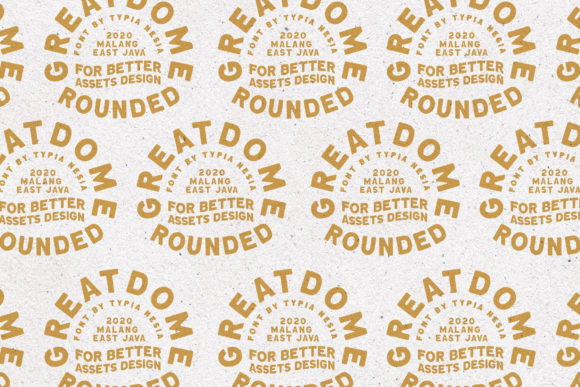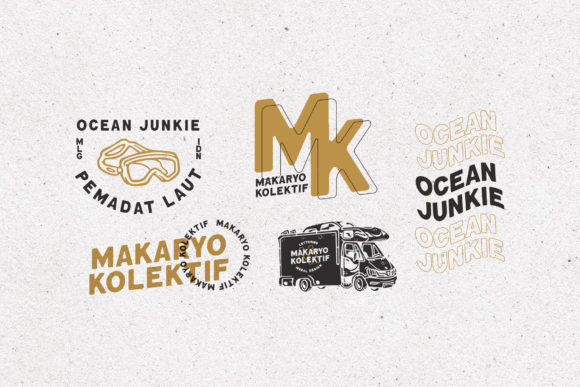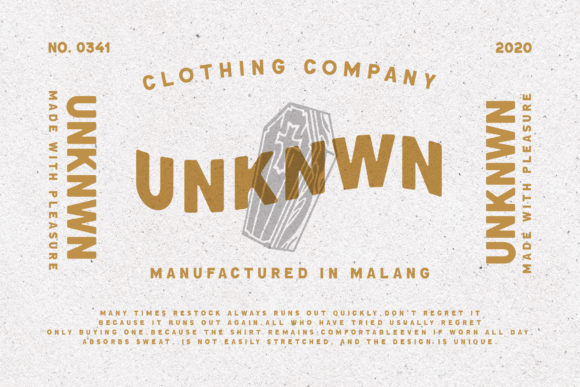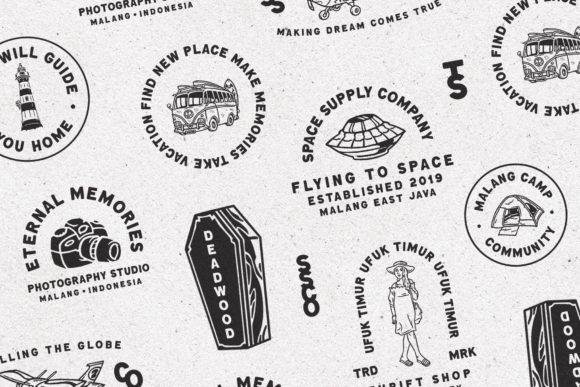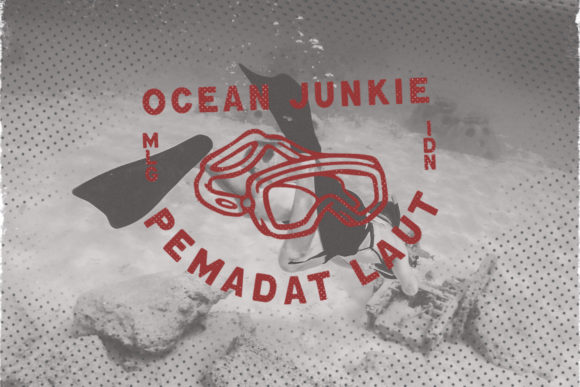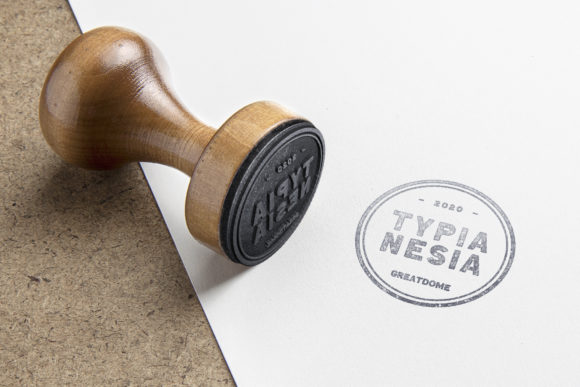
Discover the Timeless Elegance of Great Dome Font
Are you on the hunt for a typeface that exudes elegance, authenticity, and a touch of vintage charm? Look no further than the Great Dome font. This stunning sans serif typeface is sure to add a down-to-earth vibe to a wide variety of projects, making it a must-have for designers and crafters alike.
The Essence of Great Dome Font
Great Dome feels like an incredibly elegant and authentic vintage sans serif typeface. Its unique design elements evoke a sense of nostalgia, transporting you back to a bygone era of classic typography. The font’s clean lines, subtle curves, and perfectly balanced proportions make it an exceptional choice for a wide range of applications.
Key Features of Great Dome Font
• Elegant and Authentic Design: Great Dome boasts an authentic vintage aesthetic that is both elegant and sophisticated.
• Versatile and Adaptable: This typeface is incredibly versatile, making it suitable for use in a variety of projects, from branding and advertising to packaging and digital media.
• Down-to-Earth Vibe: Great Dome’s unique character adds a touch of warmth and approachability to any design, making it perfect for crafters and designers looking to create a sense of connection with their audience.
• Exceptional Legibility: The font’s clear and concise design ensures exceptional legibility, even at smaller font sizes.
What Makes Great Dome Font Stand Out?
Great Dome font stands out from the crowd due to its distinctive design elements and exceptional versatility. Its elegant and authentic vintage aesthetic makes it an excellent choice for designers and crafters looking to add a touch of sophistication to their work.
Great Dome font is perfect for a wide range of projects, including:
• Branding and Identity: Create a lasting impression with a custom logo or brand identity that exudes elegance and sophistication.
• Advertising and Marketing: Add a touch of vintage charm to your advertising and marketing materials, making them stand out in a crowded marketplace.
• Packaging and Labeling: Elevate your packaging and labeling with a typeface that is both elegant and eye-catching.
• Digital Media: Bring a touch of sophistication to your digital media, including websites, social media graphics, and more.
Tips for Using Great Dome Font
To get the most out of Great Dome font, consider the following tips:
• Pair with Other Fonts: Experiment with pairing Great Dome with other fonts to create a unique and visually appealing typography scheme.
• Adjust Font Sizes: Play with font sizes to create visual hierarchy and add emphasis to specific design elements.
• Experiment with Colors: Try out different color schemes to find the perfect combination that complements your design.
In conclusion, Great Dome font is an exceptional choice for designers and crafters looking to add a touch of elegance and authenticity to their work. Its unique design elements, versatility, and exceptional legibility make it a must-have for a wide range of projects. Whether you’re working on branding, advertising, packaging, or digital media, Great Dome font is sure to make a lasting impression.
Get Ready to Elevate Your Designs with Great Dome Font